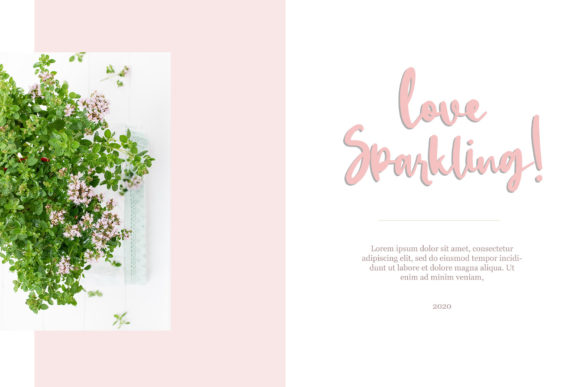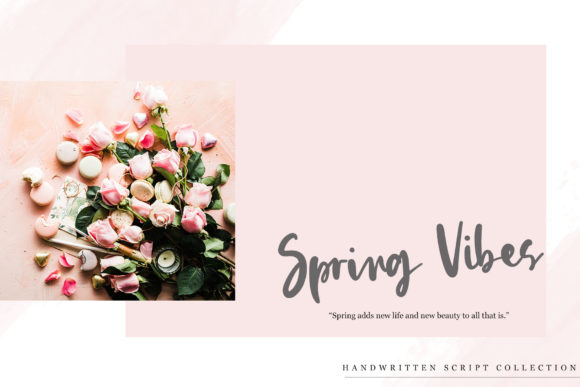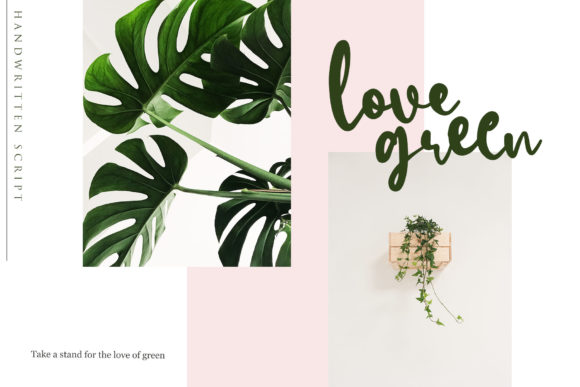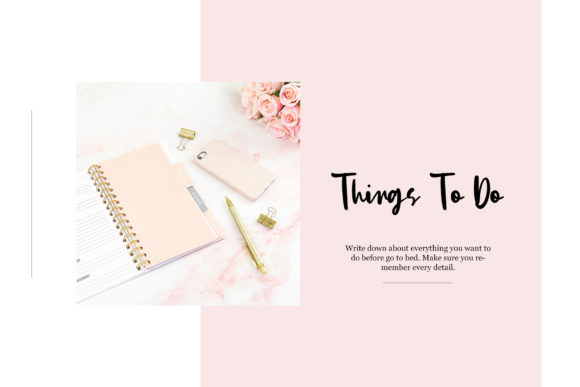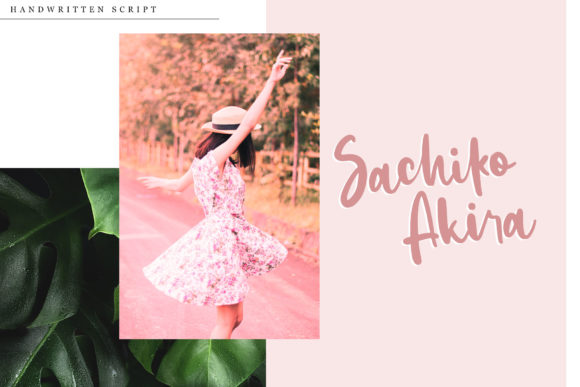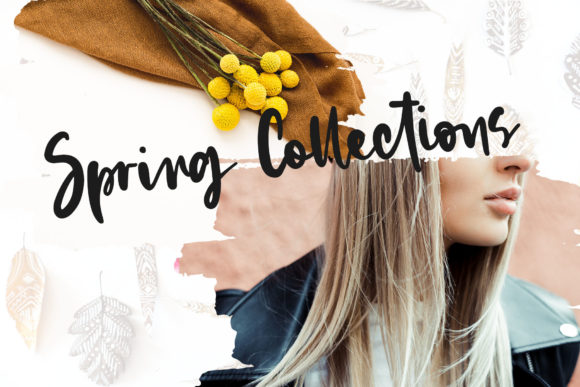
Introduction to Hachiko Font
Have you ever stumbled upon a design project that sparks your creativity, only to realize that the perfect font is missing? For designers, finding the right typography can make all the difference in bringing a concept to life. This is exactly what happened when I discovered the Hachiko Font – a gorgeous casual handwritten font that has been a game-changer for my creative projects.
With its quirky style and 74 ligatures, the Hachiko Font is a valuable resource for designers looking to add a touch of personality to their designs. Whether you’re working on a high-quality brochure, a website, or a social media graphic, this font is sure to make your design stand out. And the best part? It’s available for free download with a transparent background, making it easy to integrate into any project.
- Unique characteristics: Hachiko Font features a clean, modern design with a unique blend of traditional and contemporary elements, making it perfect for designers looking for a distinctive font.
Honest Review: Hachiko Font
I recently stumbled upon the Hachiko Font while searching for a reliable design resource for my next creative project. As a designer, I’m always on the lookout for high-quality fonts that can elevate my work.
The Hachiko Font is a free download, which immediately caught my attention. I was pleasantly surprised by its clean and modern design. The font features a transparent background, making it easy to use on any design project.
What works well: ✨ The font is highly legible, even at smaller sizes. The design is simple yet effective, making it suitable for a wide range of creative projects. The free download option is also a major plus.
- Perfect for headings and titles
- Great for digital and print projects
- Easy to use on any design software
⚠️ One limitation is that the font may not be suitable for projects requiring a bold, attention-grabbing font. Additionally, the design may not be as unique as some other fonts on the market.
Overall, I’m impressed with the Hachiko Font. It’s a solid addition to any designer’s toolkit, and I’d definitely recommend it for any creative project. With its high quality and transparent background, it’s a great choice for designers looking for a reliable font resource.
The Hachiko Font is a versatile and high-quality font that can be used in various creative projects. This free download offers a transparent background, making it easy to integrate into any design.
The Hachiko Font is ideal for use in logos, branding, and marketing materials. Its high-quality design and transparent background make it easy to use in a variety of creative projects.